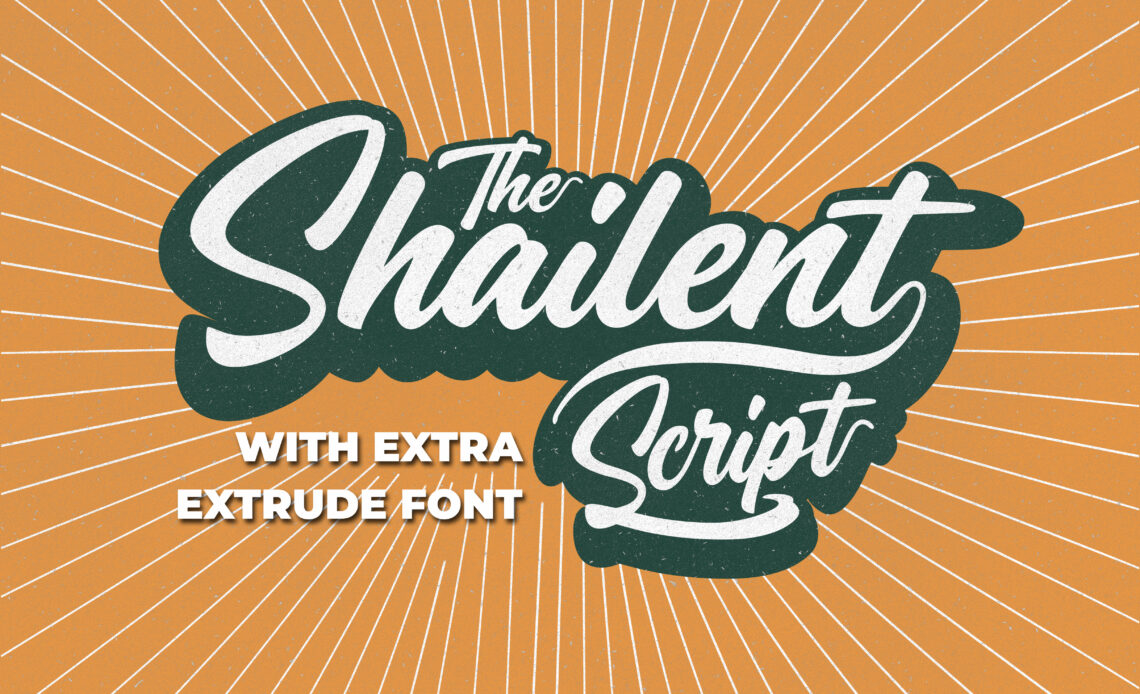
Introducing The Shailent Font: Where Script Beauty Meets Daring Charm
In a world of monotonous typography, meet The Shailent Font - a captivating script that harmonizes delicate femininity with audacious boldness. Its modern flair breathes life into pop art designs, transforming your displays and headlines into captivating works of art.
The Shailent Font is not just a font; it's an expression of individuality and a catalyst for remarkable designs. Its sweeping strokes, graceful curves, and confident angles create a visual symphony that draws attention and captivates hearts.
Unleash Your Creative Spirit
With The Shailent Font's versatility, your creativity knows no bounds. Whether you're designing posters, invitations, social media posts, or logos, this font adds a touch of elegance and intrigue that sets your work apart.
Imagine your words dancing across the screen in The Shailent's unique script, commanding attention and igniting emotions. Its meticulously crafted characters evoke a sense of nostalgia and romance, making your designs timeless and memorable.
Express Yourself with Confidence
The Shailent Font is not for the faint-hearted. It's for those who embrace their unique style and aren't afraid to make a statement. Its bold personality adds depth and character to your designs, ensuring they leave a lasting impression.
Whether you're a seasoned designer or just starting your creative journey, The Shailent Font empowers you to express yourself with confidence. Its user-friendly design makes it accessible to all skill levels, allowing you to create stunning visuals effortlessly.
Experience the Shailent Magic
With The Shailent Font as your design companion, you'll discover a world of endless possibilities. Its enchanting charm will transform your projects into captivating masterpieces, leaving your audience spellbound and eager for more.
Don't settle for ordinary fonts that blend in the background. Choose The Shailent Font and let your creativity shine. Embrace its beauty, harness its power, and embark on a journey of remarkable designs.